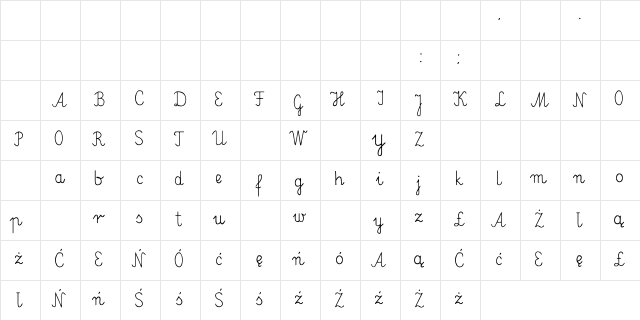
Elementarz is a composed and adaptable typeface that performs quietly and consistently across a wide range of design contexts.
Pro Tip: Use Elementarz in both headline and body roles to test its range before committing to a single application.